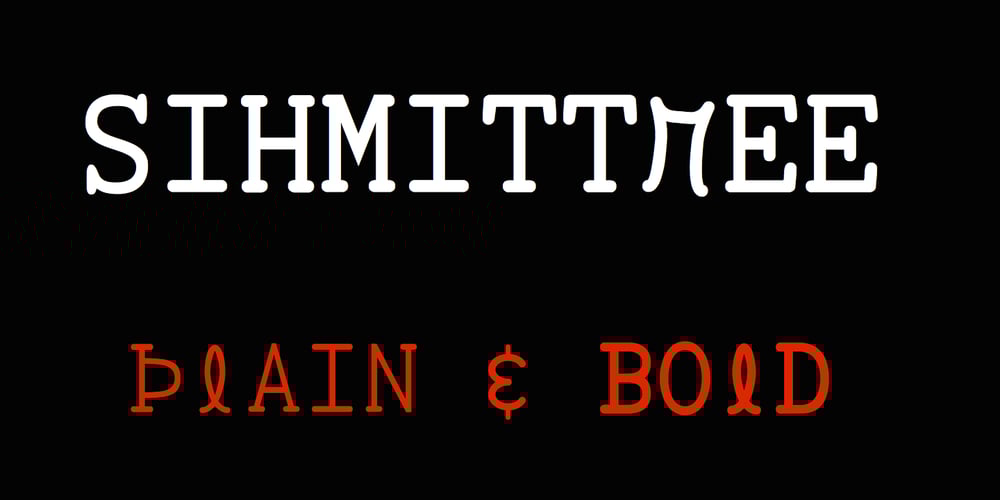
Sihmittree
Sihmittree font
Sihmittree Font Family was designed by Robert Schenk and published by Ingrimayne Type. Sihmittree contains 2 styles and family package options. Sihmitree is a gimmick typeface in which all glyphs have reflective (mirror) or rotational symmetry (or both). Sihmitree has two weights and is caps only, with most of the lower-case letters identical to the upper-case letters. It includes only those accented characters that are symmetrical. The letters of the alphabet are often used to explain symmetry. BCDEK are given as examples of shapes that can easily be formed with symmetry over a horizontal line. AMQTUVWY can easily be formed so that they mirror over a vertical line. Letters HIOX can be formed so they mirror over both horizontal and vertical lines, and as a result they will also have rotational symmetry. Letters NSZ can be formed so that they reproduce themselves with a rotation of 180º. That leaves letters FGJLPR, which are usually considered examples of asymmetry. However, there are script versions of J, L, and R that can be formed with symmetry, and variants of lower-case f and g can be made that are symmetrical. P looks a lot like the thorn character. Some of the numbers also present challenges when trying to form them symmetrically. The symmetrical alphabet is not stylistically harmonious and has limited use other than as an exploration of symmetry.